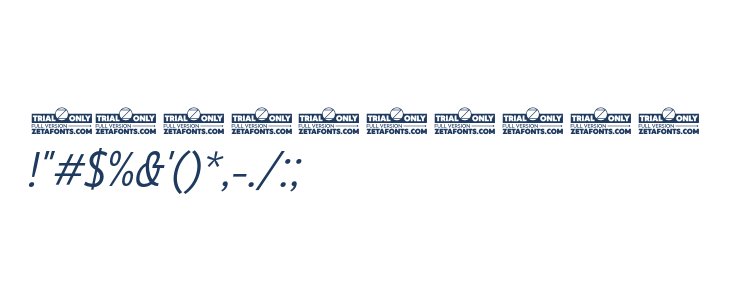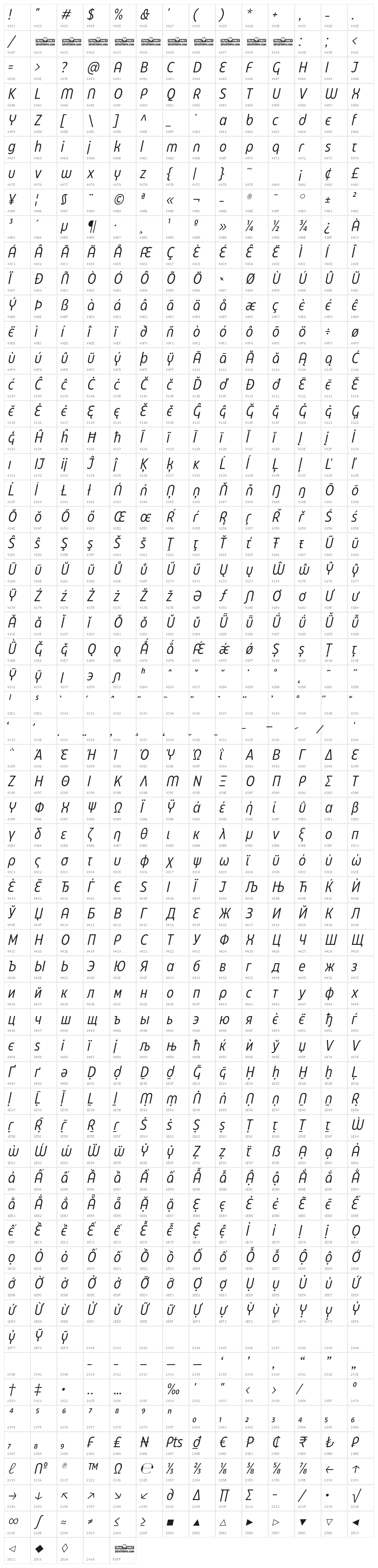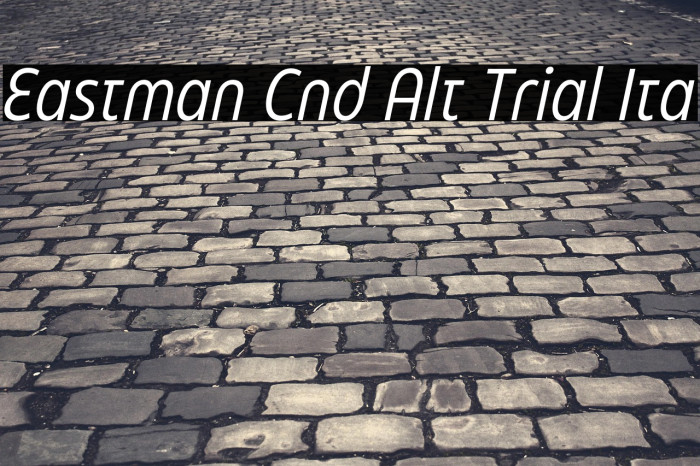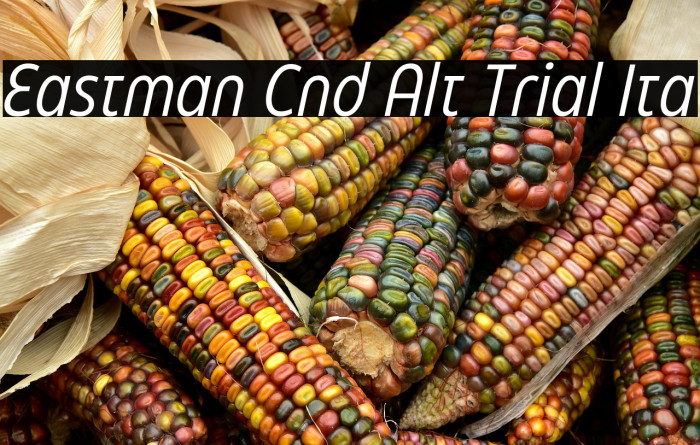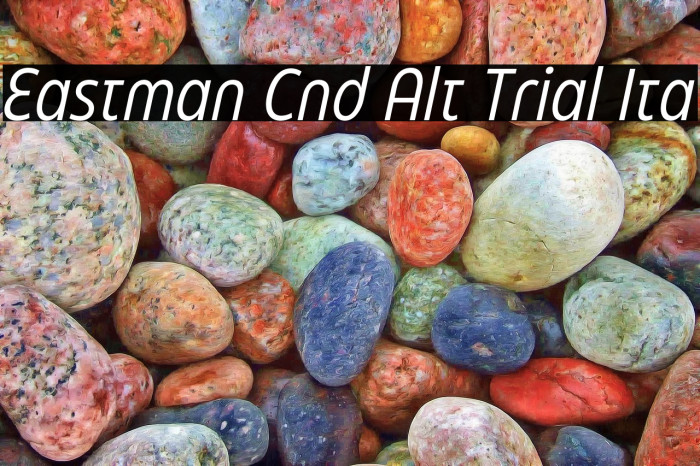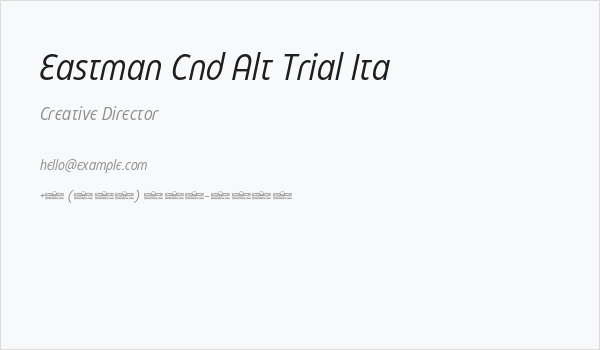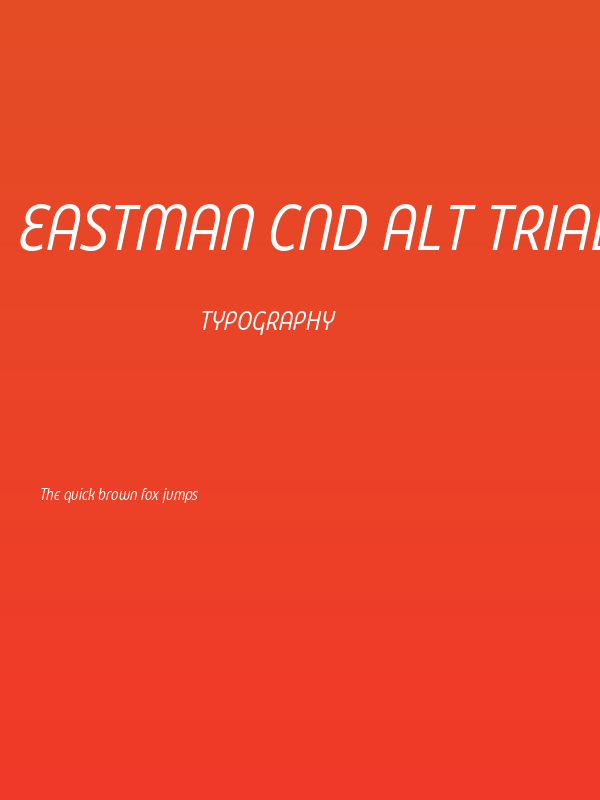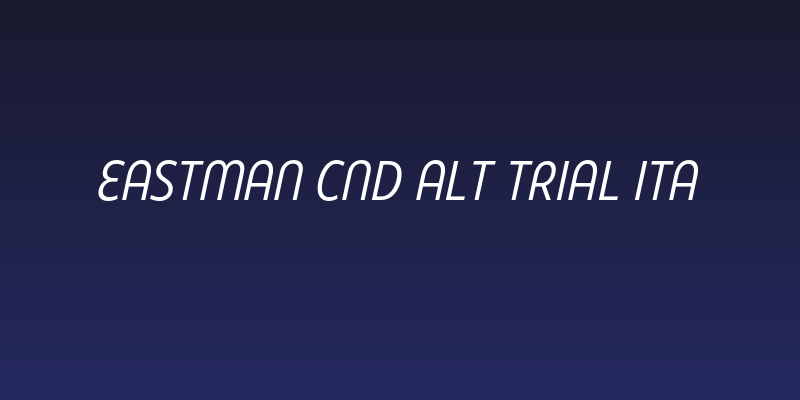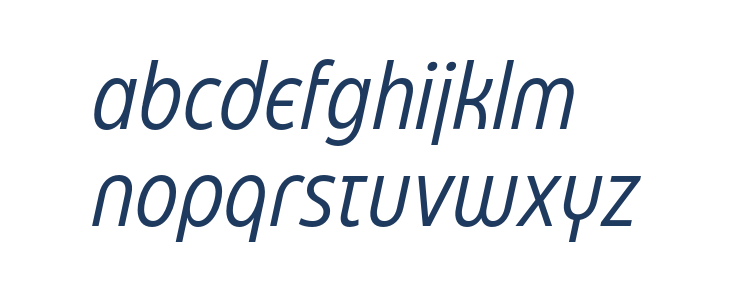
Eastman Cnd Alt Trial Ita Font
Eastman Cnd Alt Trial Ita Description
This font features a sleek and modern design with a condensed width, giving it a streamlined appearance. The characters have a slight italic slant, adding a dynamic and forward-moving feel. The strokes are consistent in thickness, providing a uniform look across all characters. The uppercase and lowercase letters are well-proportioned, with a smooth curvature that enhances readability. The special characters are distinct and maintain the overall aesthetic of the font, making it versatile for various uses.
| Proposed Projects | Ideal for branding, advertising, and editorial design projects where a modern and dynamic look is desired. |